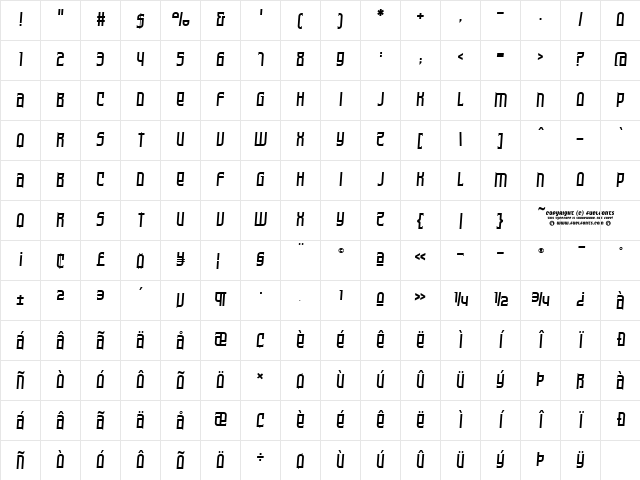
Armorica Oblique
Armorica Family
Design Context for Armorica
Armorica is a composed and adaptable typeface that performs quietly and consistently across a wide range of design contexts. The slanted form adds forward momentum and visual energy.
Pro Tip: Use Armorica for emphasis, pull quotes, and subheadings where its slanted energy can add rhythm to the layout.